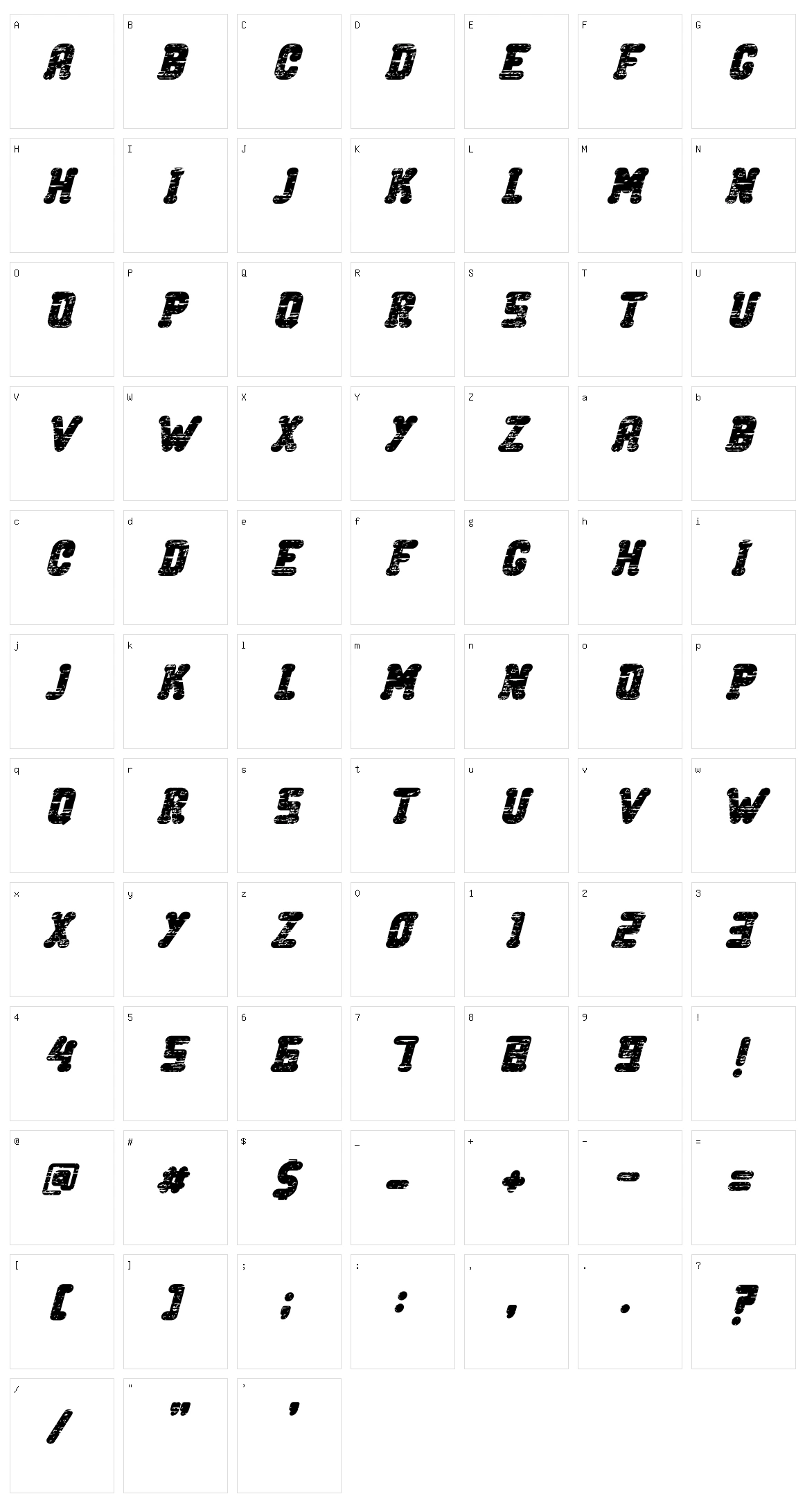
The free font Old Phone is carefully designed by Design Vector10, showcasing a thoughtful balance of creativity and usability and falls under the Eroded font style. When you download the ZIP file, it contains only 146.04 KB of font files, making it lightweight and quick to download. Please review the license details below to understand permitted usage and distribution rights. If license information is not available, we recommend using this font for personal projects only or contacting the author directly for commercial usage permissions.